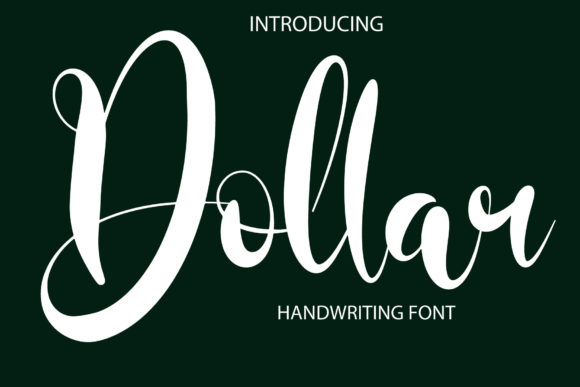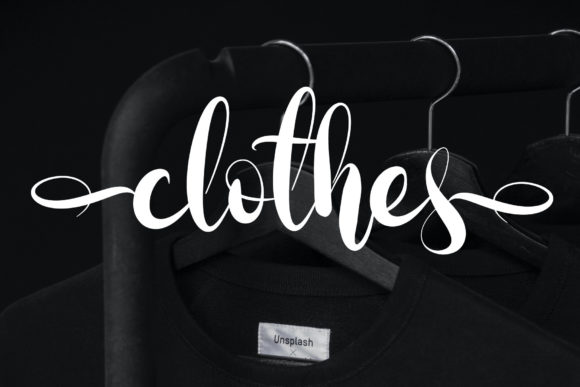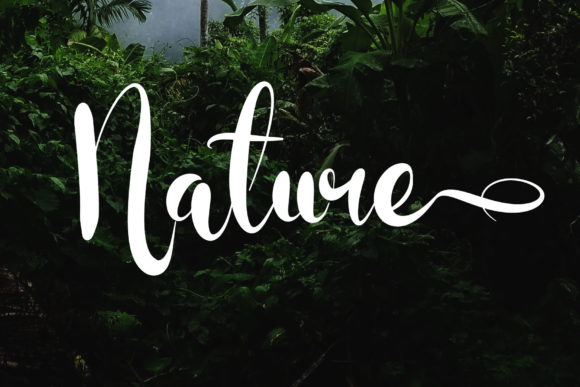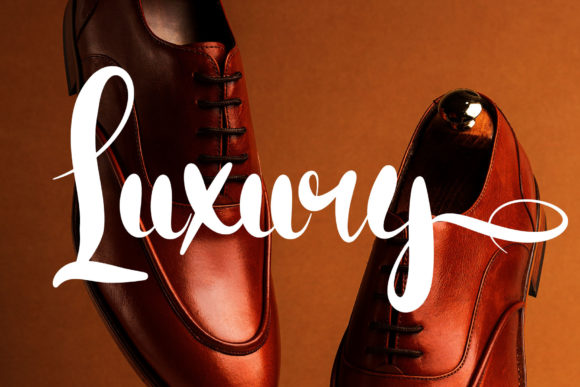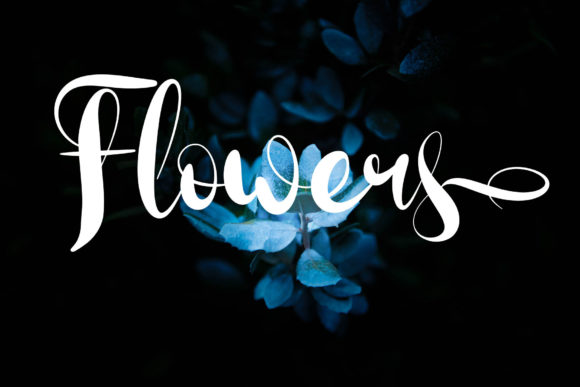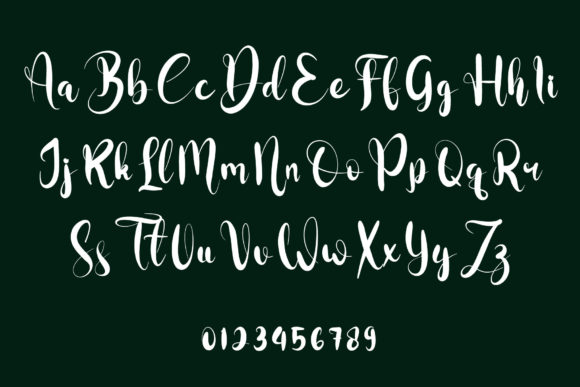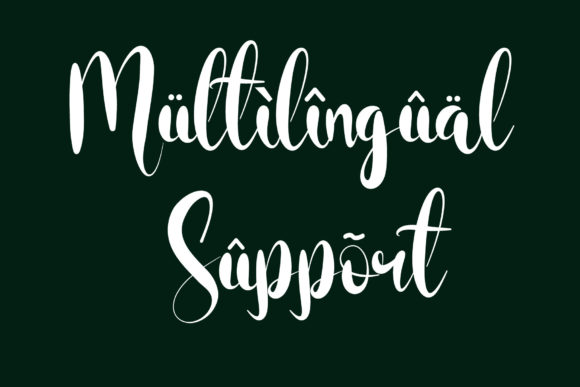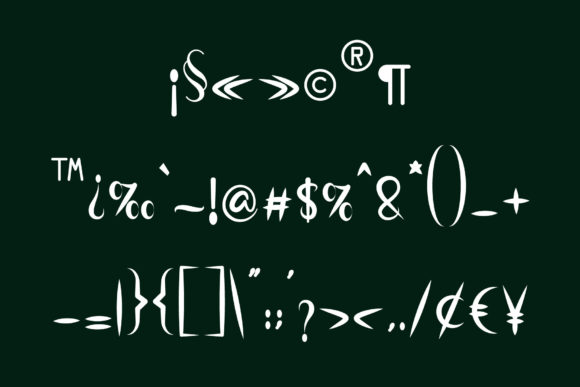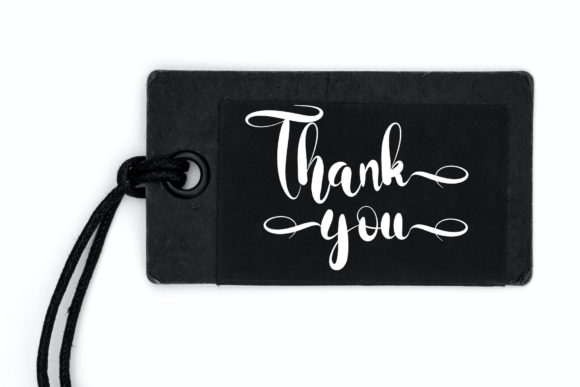
Dollar Font
Dollar is a captivating and refined script font that exudes a sense of elegance and charm. Its distinct and graceful style makes it a versatile choice for a wide range of design projects, adding a touch of sophistication and allure to your creations.
The font’s ravishing design is sure to capture attention and leave a lasting impression. Its graceful curves and flowing lines create a harmonious and visually pleasing composition, making it an excellent choice for projects that require a sense of beauty and refinement.
Dollar’s versatility allows it to shine across various topics and themes. Whether you’re working on a formal invitation, a branding project, a magazine layout, or any other design endeavor, this font can seamlessly adapt to the context and elevate the overall aesthetic.
Incorporating Dollar into your fonts’ library opens up a world of creative possibilities. Its unique style can add a distinctive flair to your designs, making them stand out and command attention. Whether you’re designing for print or digital platforms, Dollar’s graceful script can lend a touch of sophistication that resonates with your audience.
Branding projects can benefit from Dollar’s graceful and refined look. Its elegant script can become an integral part of your brand’s visual identity, symbolizing qualities such as luxury, class, and style. Whether it’s a logo, packaging, or promotional materials, Dollar adds a layer of prestige to your brand.
Invitations, greeting cards, and event materials are also enhanced by Dollar’s exquisite design. Its distinct style brings an air of elegance and grandeur to weddings, parties, and special occasions, setting the tone for a memorable and sophisticated experience.
Magazines, book covers, and editorial layouts can be elevated by Dollar’s graceful script. Its unique and eye-catching appearance draws readers in and adds a touch of artistic flair to the design, making it ideal for fashion, lifestyle, and high-end publications.
In summary, Dollar is a distinct and graceful script font that offers a ravishing style suitable for a wide array of design projects. Its refined and elegant appearance makes it a valuable asset to your fonts’ library, capable of elevating any creation and adding a touch of sophistication and allure. Whether you’re working on branding, invitations, magazines, or other projects, Dollar’s potential to enhance the visual appeal is truly remarkable.